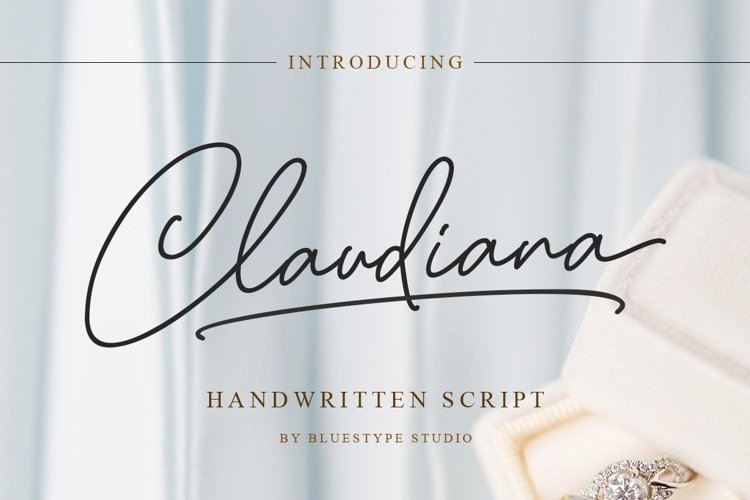
Claudiana Font
Claudiana Handwritten Font is for any typography needed, designed to combine perfectly and allow you to create stunning hand-lettering quickly and easily. This font is suitable for use on logo, business cards, weddings, t-shirt designs, books, magazines, quotes, fashion, watermarks, invitations, signatures, packaging.